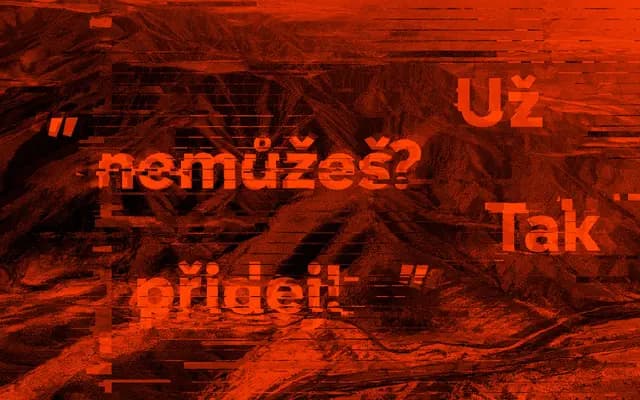
Adelphi PE
A humanist sans-serif covering Latin, Cyrillic and Greek in eight weights with matching italics and a variable font axis.
Spanning eight weights from Thin to Black with full italic companions, Adelphi PE is built for multilingual European work across Latin, Cyrillic and Greek scripts. Small caps and a variable font are included, giving it flexibility across both editorial and information design contexts. The broad script support and consistent weight range make it a practical choice for publications and interfaces that must operate across multiple languages simultaneously.
The specimen samples and multilingual scope suggest a humanist sans-serif design; the wide weight range, italics and broad script coverage are consistent with Rosetta's humanist-oriented approach to pan-European typefaces.